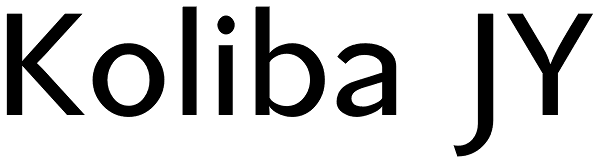
Koliba JY
Inspired by architecture and hand-lettered posters of the 1940s, JY Koliba makes a statement that is very 21st century. With an ultra-light weight plus an elegant book and bold, Koliba was designed to be flexible. Fine-tuned with a full Latin glyph...